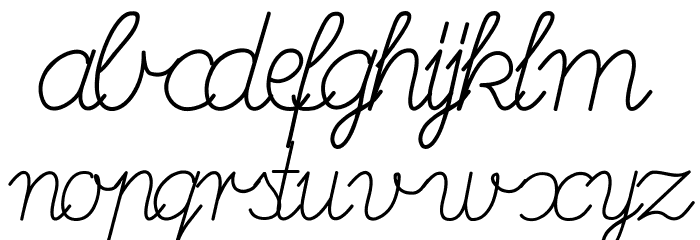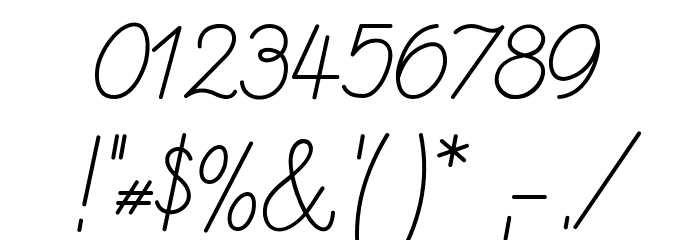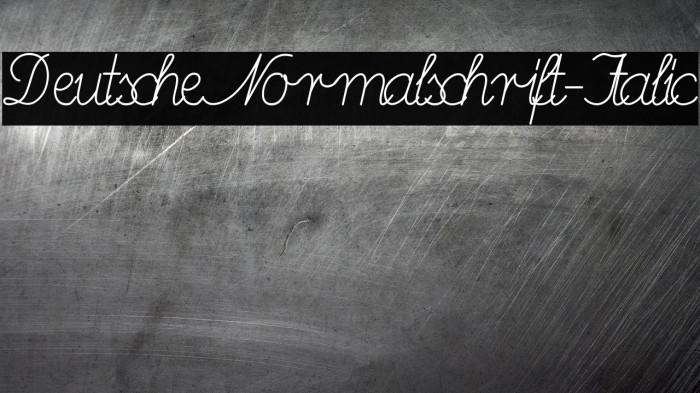
DeutscheNormalschrift-Italic Font
This elegant script font features a flowing, cursive style with smooth, connected strokes that create a sense of fluidity and grace. The uppercase letters are slightly more ornate, with subtle flourishes that add a touch of sophistication. The lowercase letters maintain a consistent slant, enhancing the italicized appearance. Numbers and special characters are designed to match the overall aesthetic, ensuring a cohesive look across all text. The font's delicate lines and consistent stroke width make it suitable for projects that require a refined and stylish touch.
A graceful, flowing script font with an elegant, italicized style.
- Proposed Projects: Ideal for wedding invitations, elegant branding, personal stationery, and sophisticated logo designs.
- Overall Style: Elegant
- Use Case: Logos, Invitations, Branding